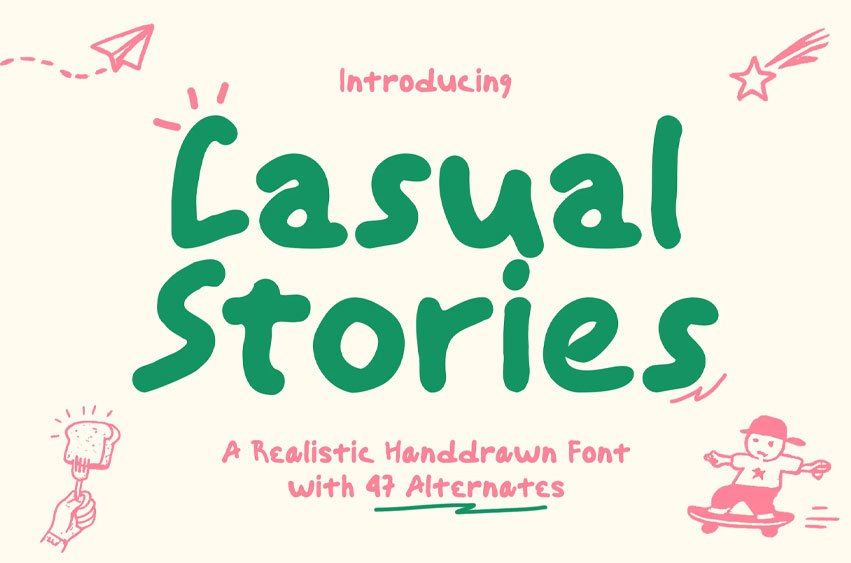
Casual Stories Font is a realistic hand-drawn display font with playful organic shapes, soft rounded strokes, and a friendly handmade feel. Perfect for branding, posters, bakery visuals, and casual creative projects.
The font includes 47 alternates, giving designers more flexibility to create natural-looking compositions with varied letter shapes. This helps the typography feel less repetitive and more authentically handmade.